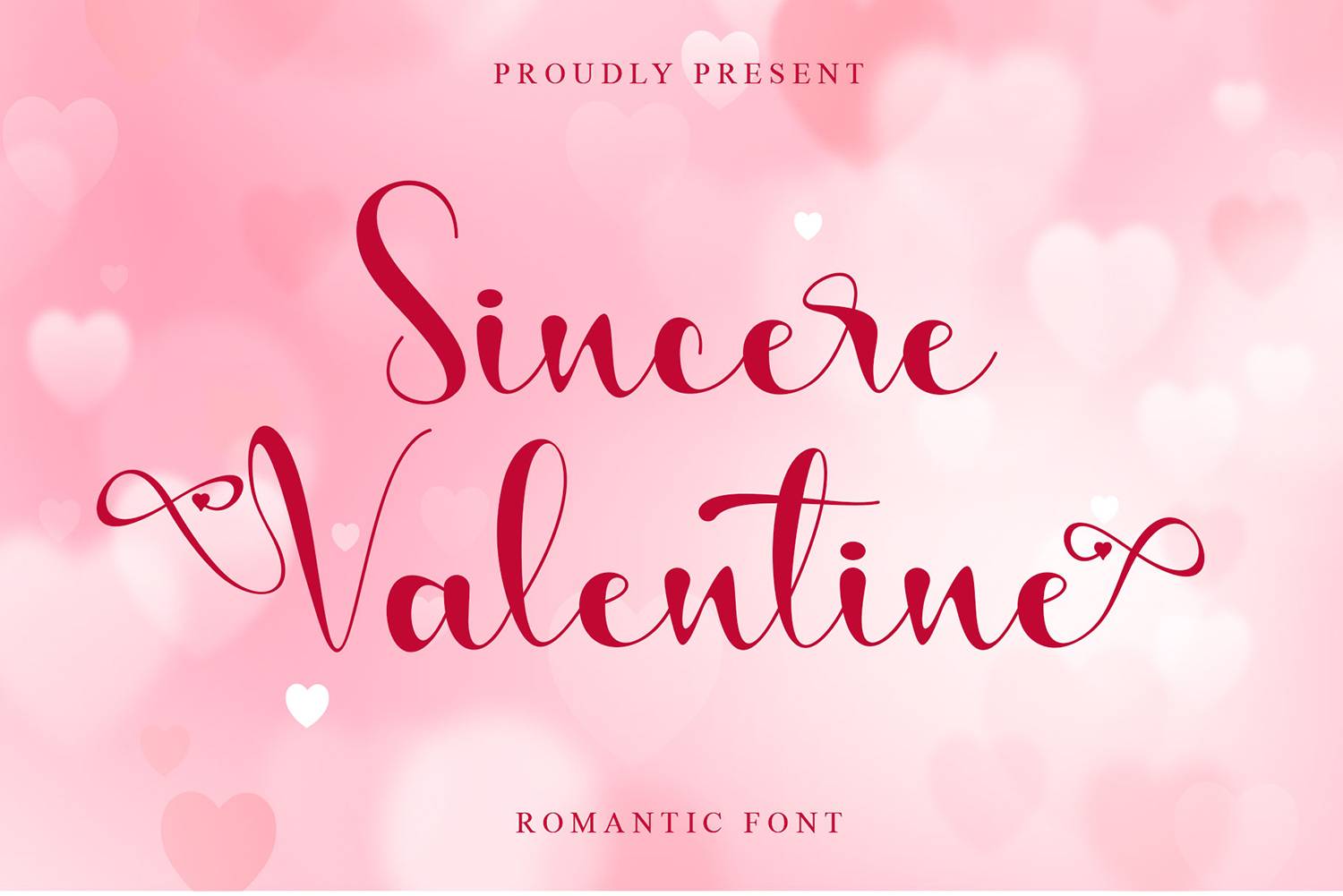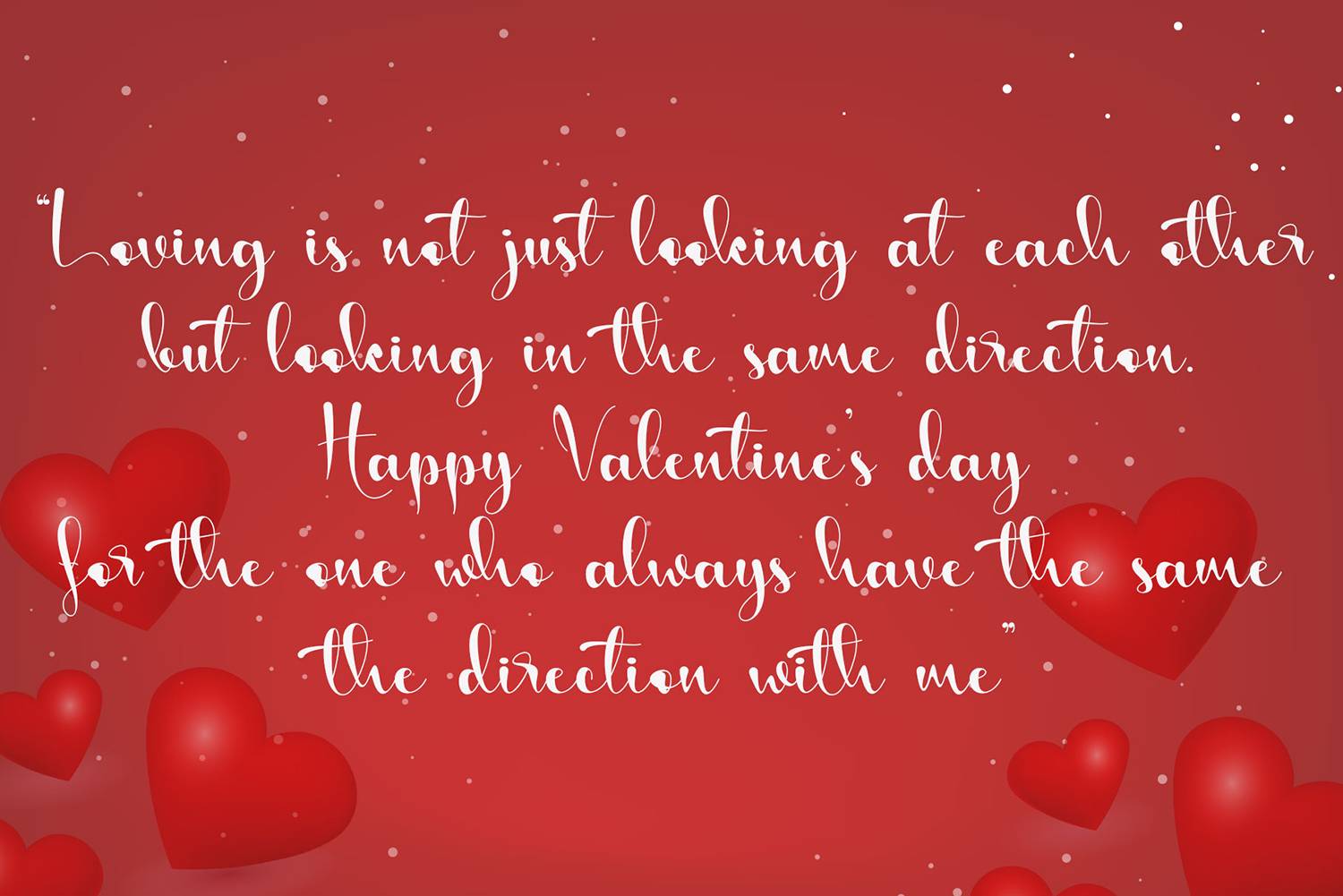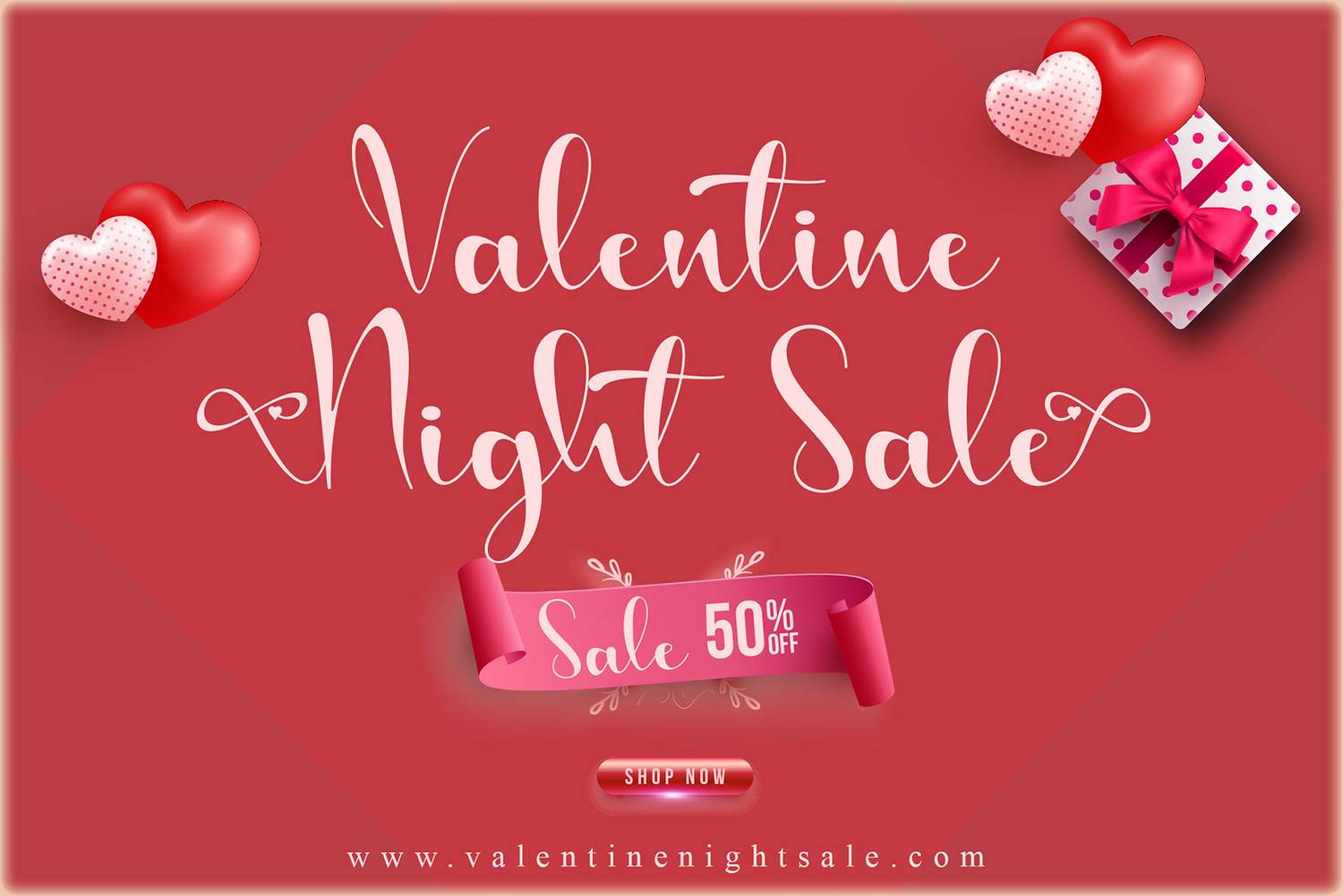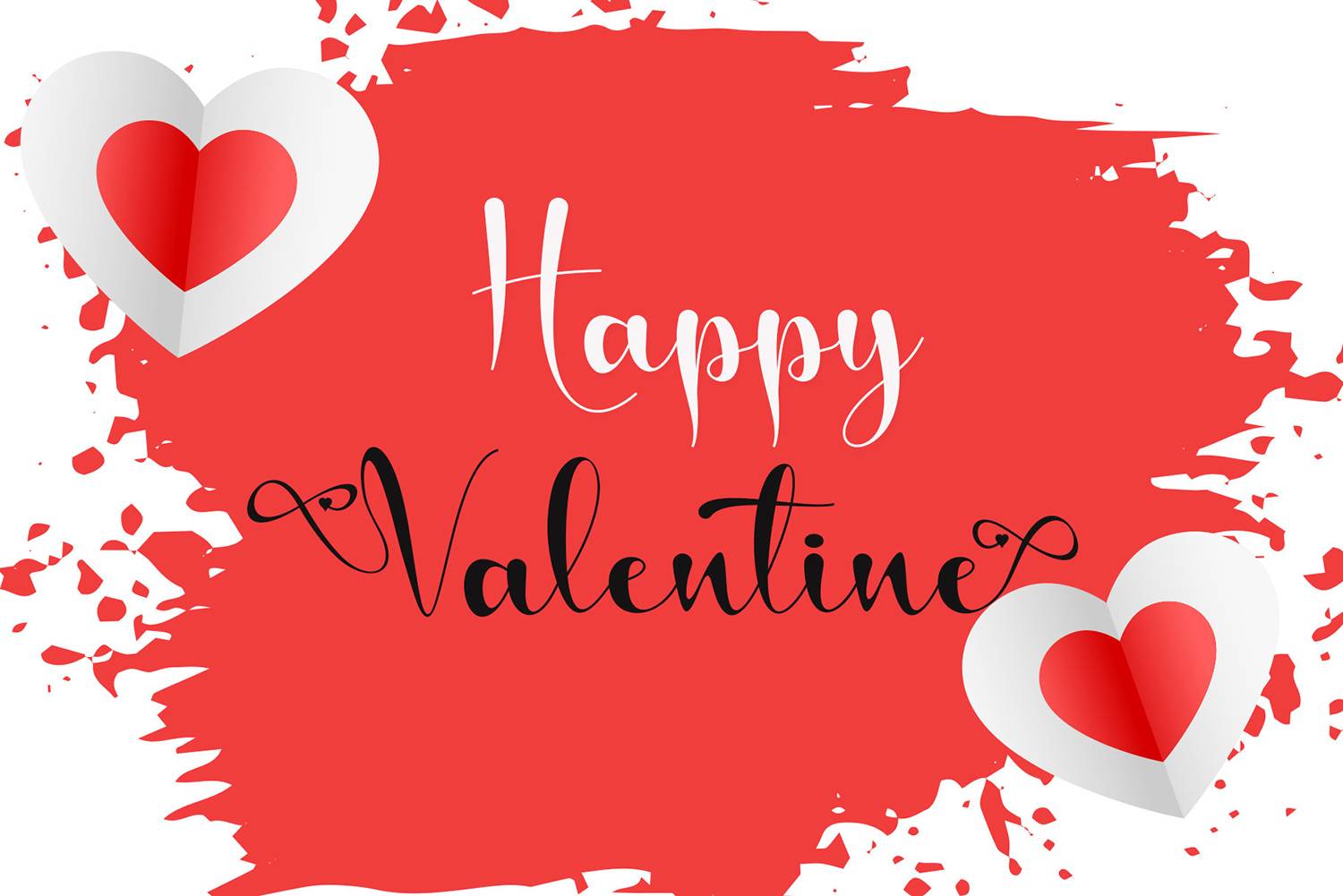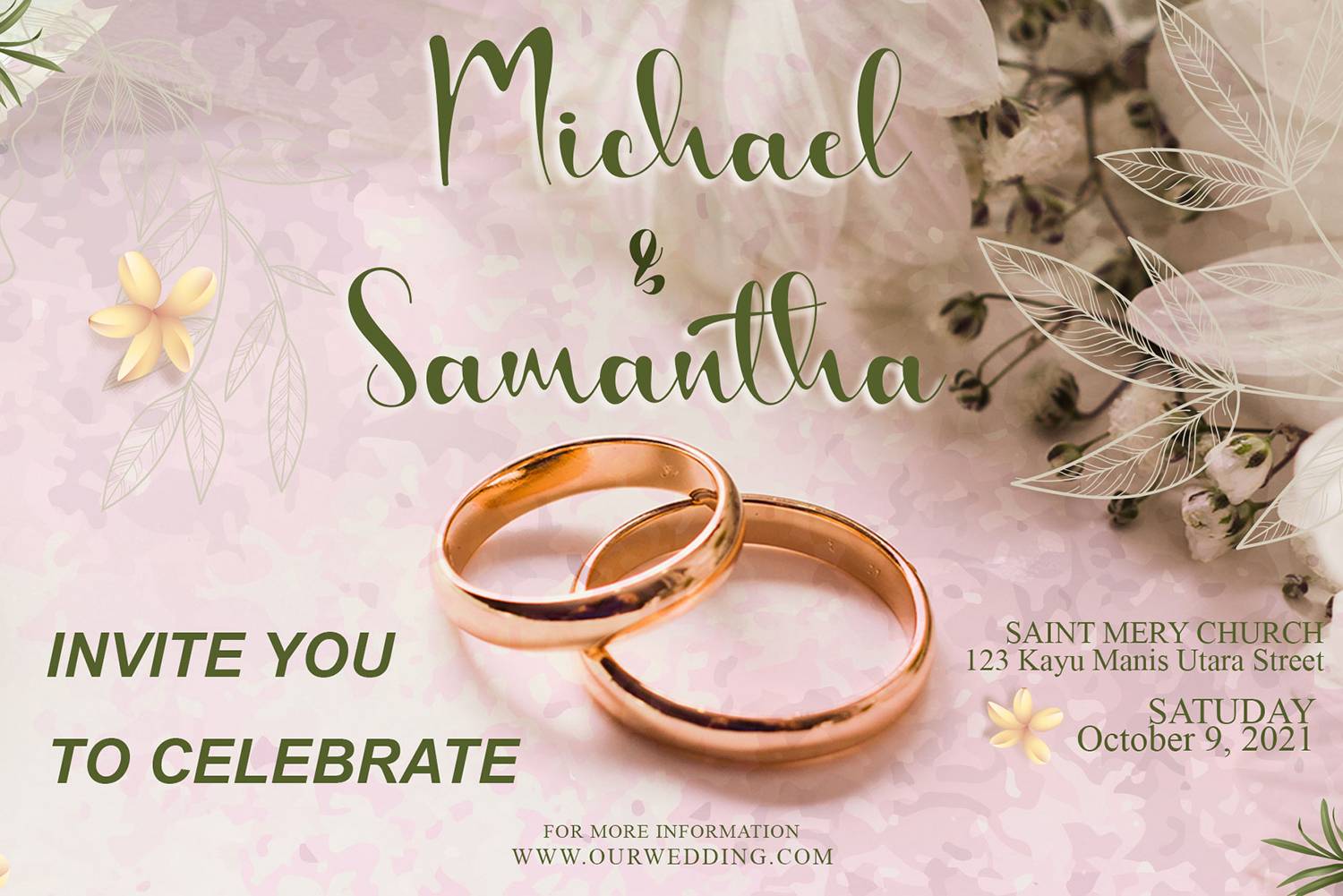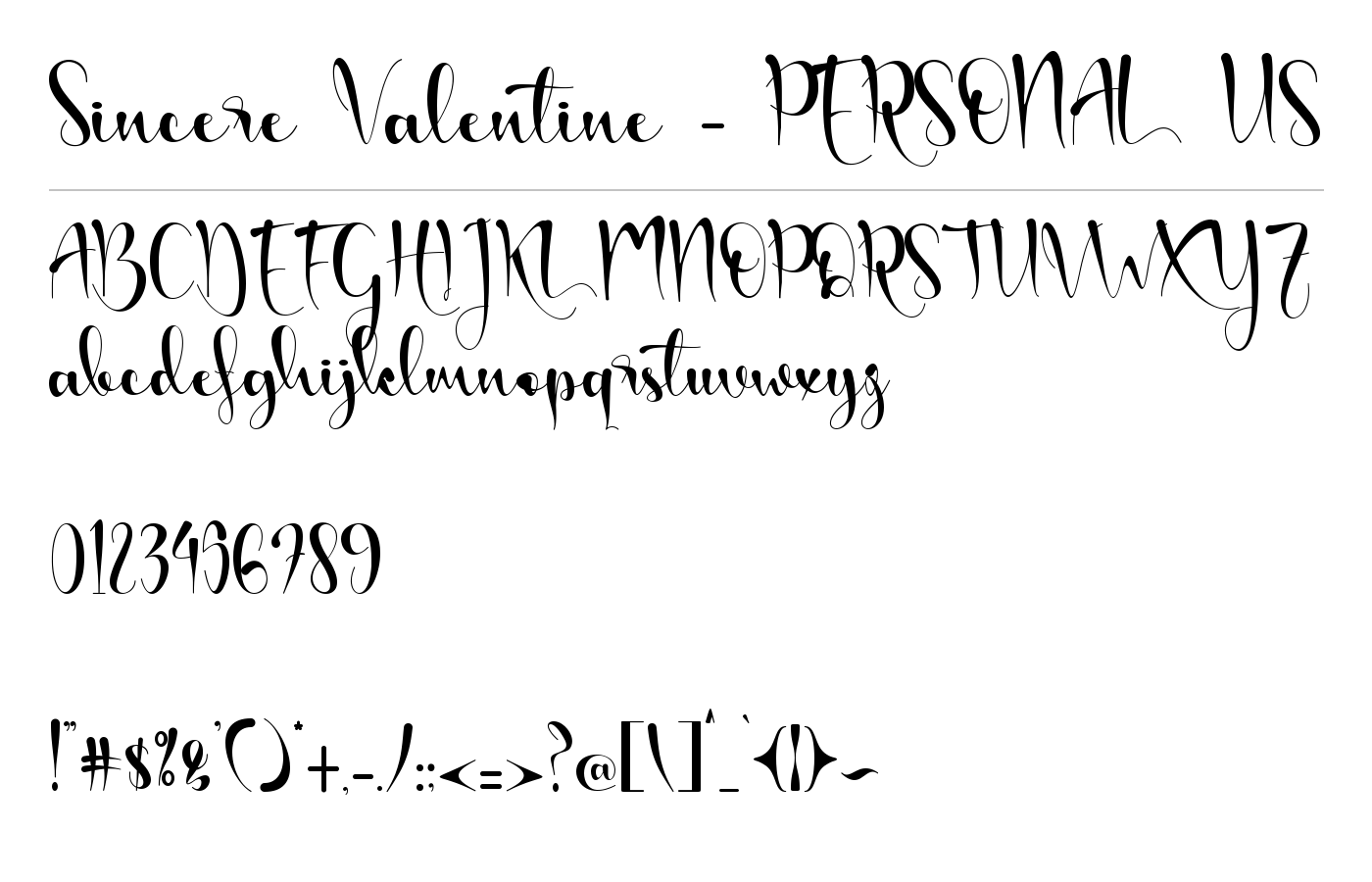
Sincere Valentine is a delicate, handwritten script font featuring elegant, flowing letterforms with high contrast between thick and thin strokes. Its tall, narrow characters and graceful swashes create a romantic and personal feel, perfect for wedding invitations, greeting cards, and feminine branding. This font shines in decorative uses where a touch of sophistication and warmth is desired.
Sincere Valentine Font
About Sincere Valentine Font